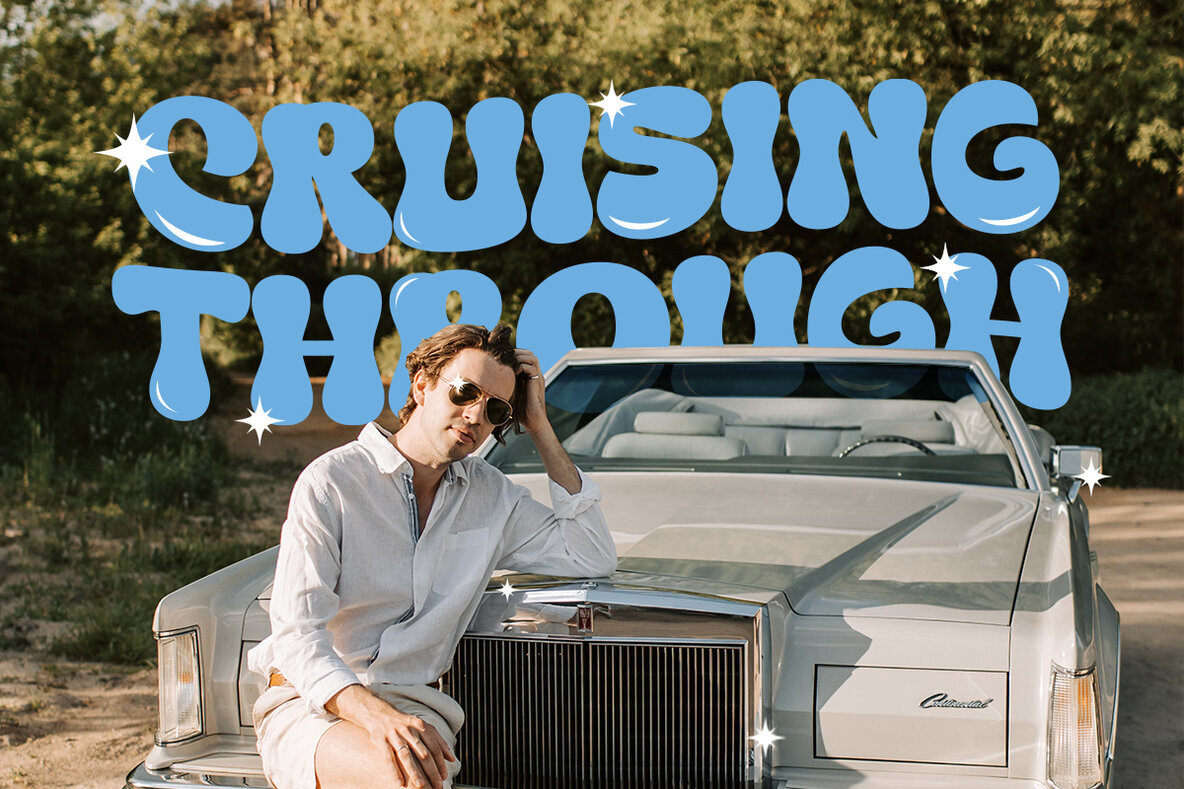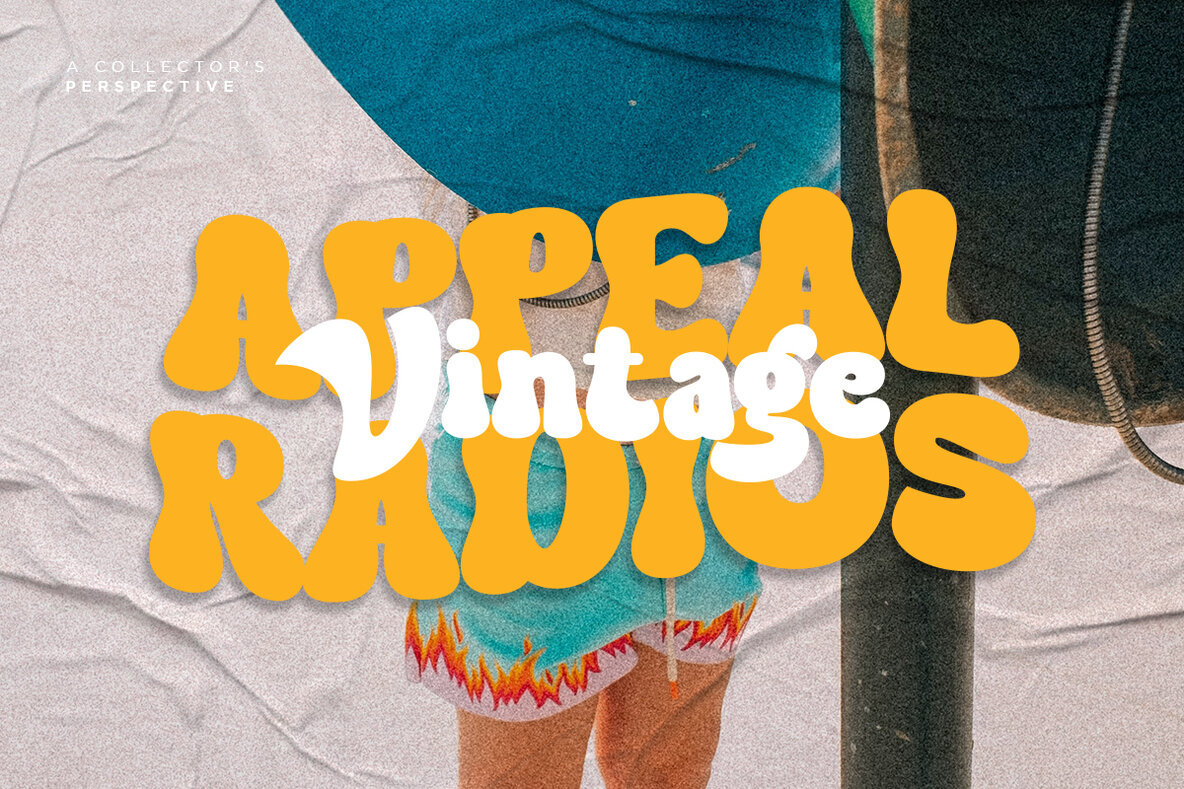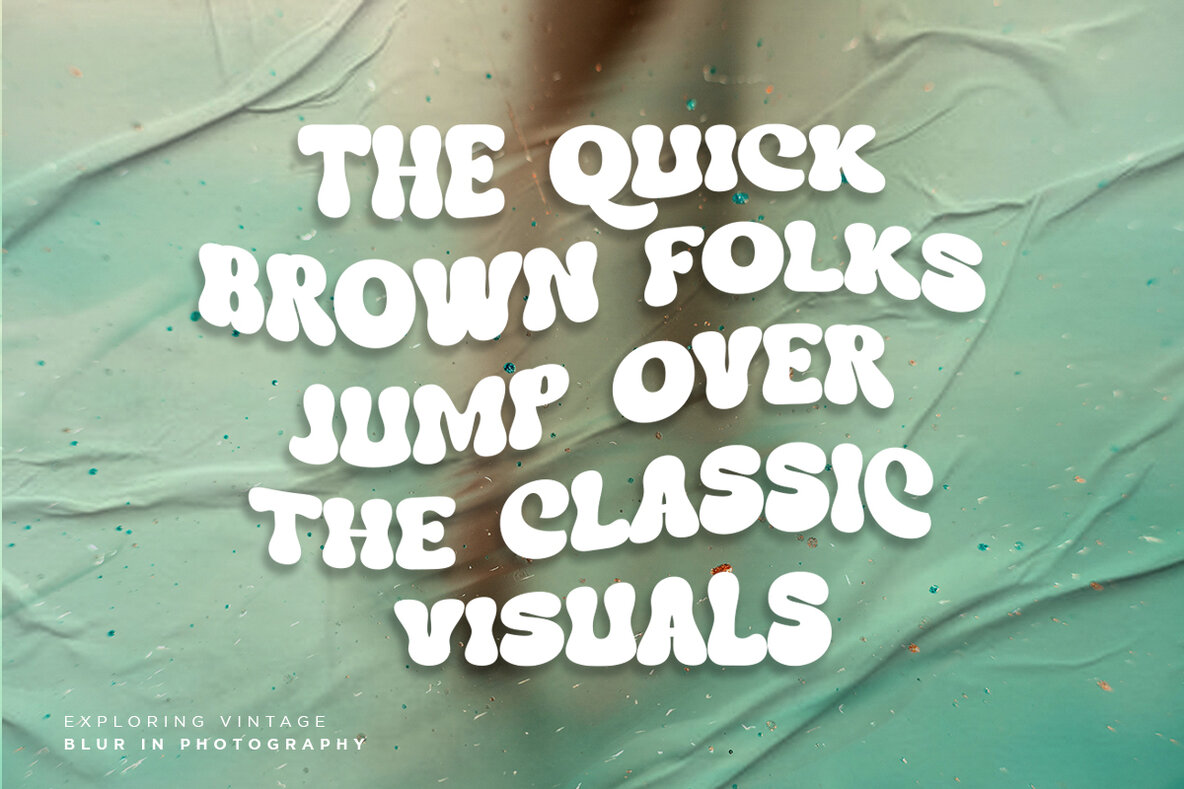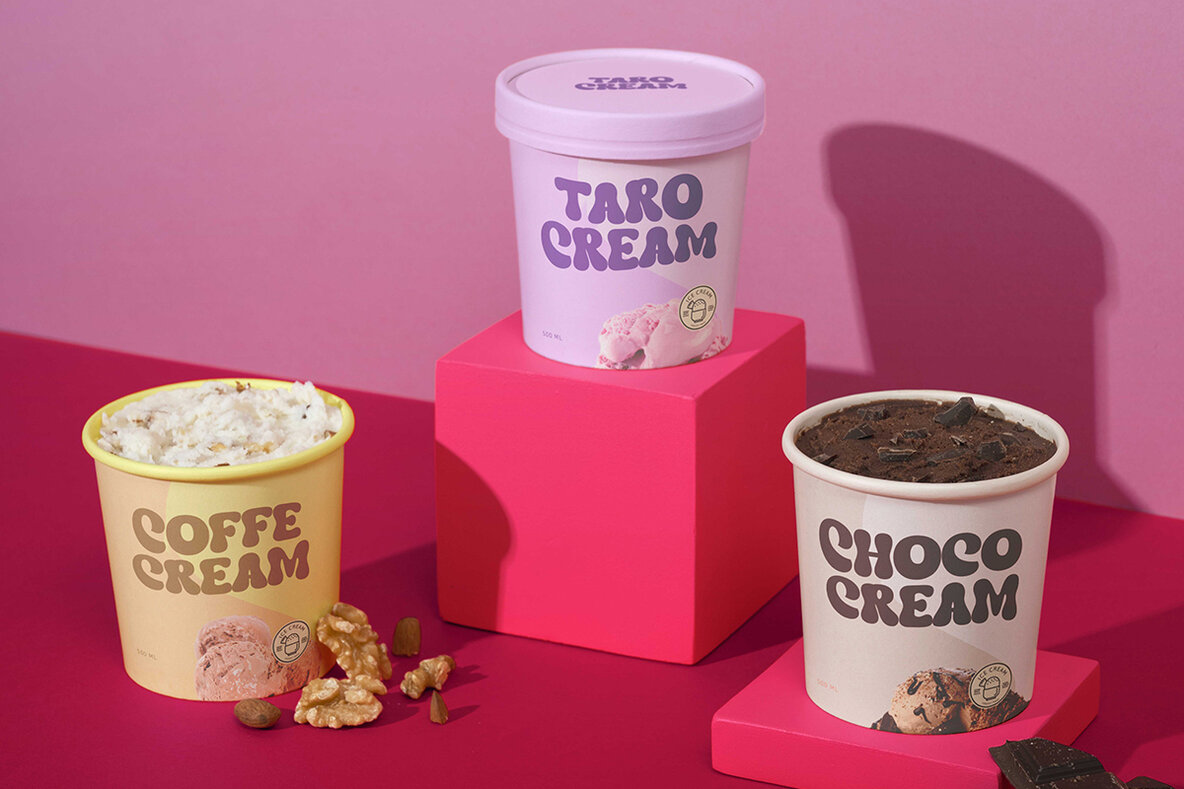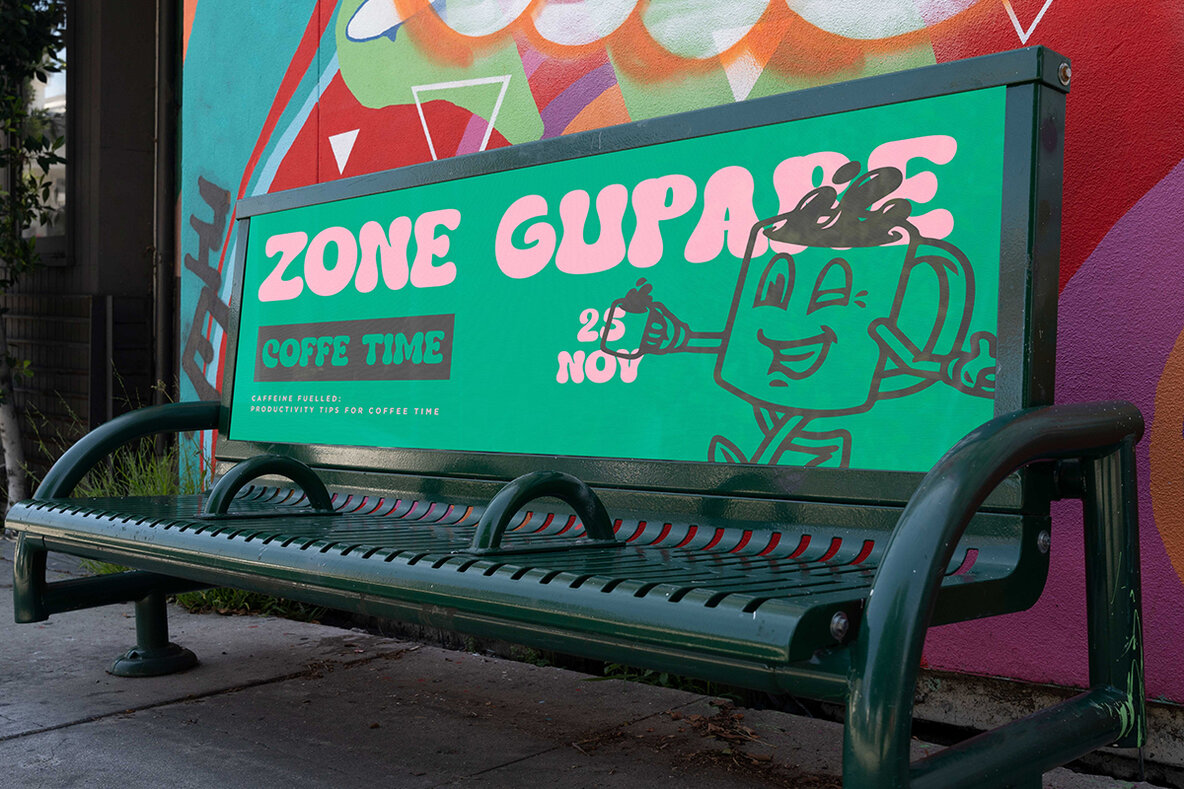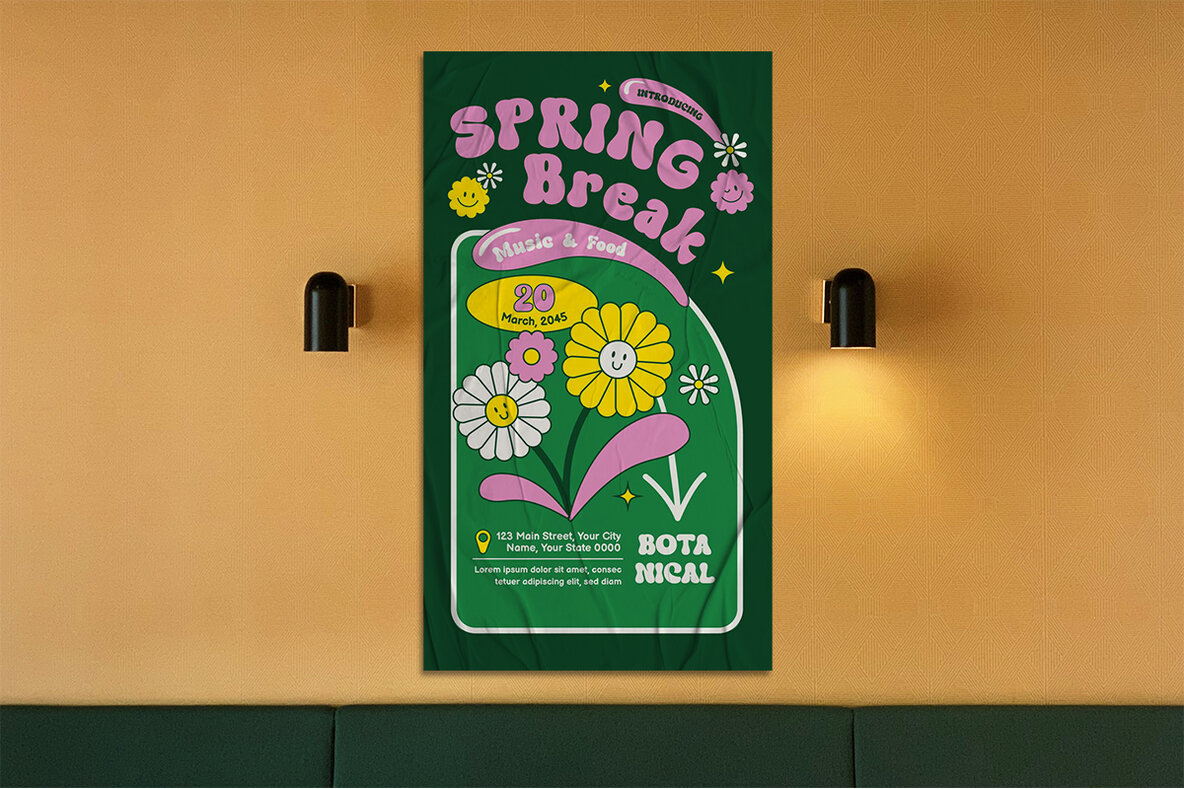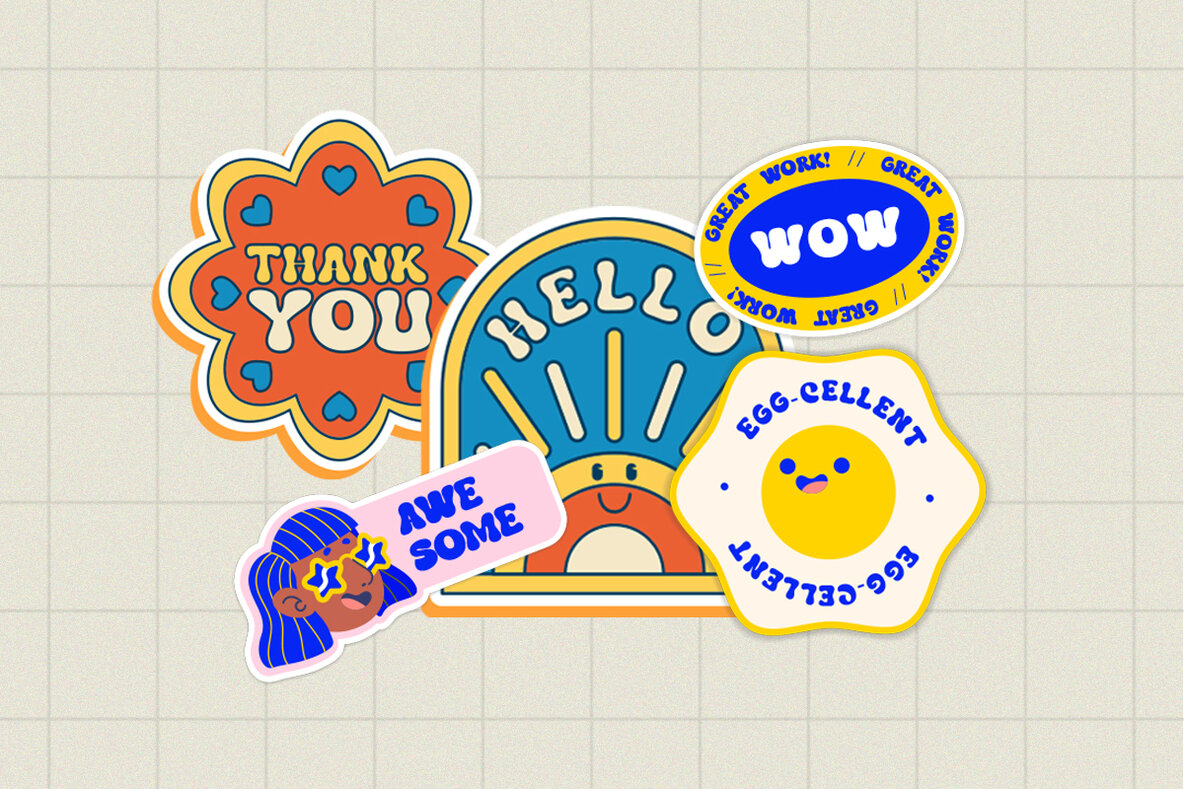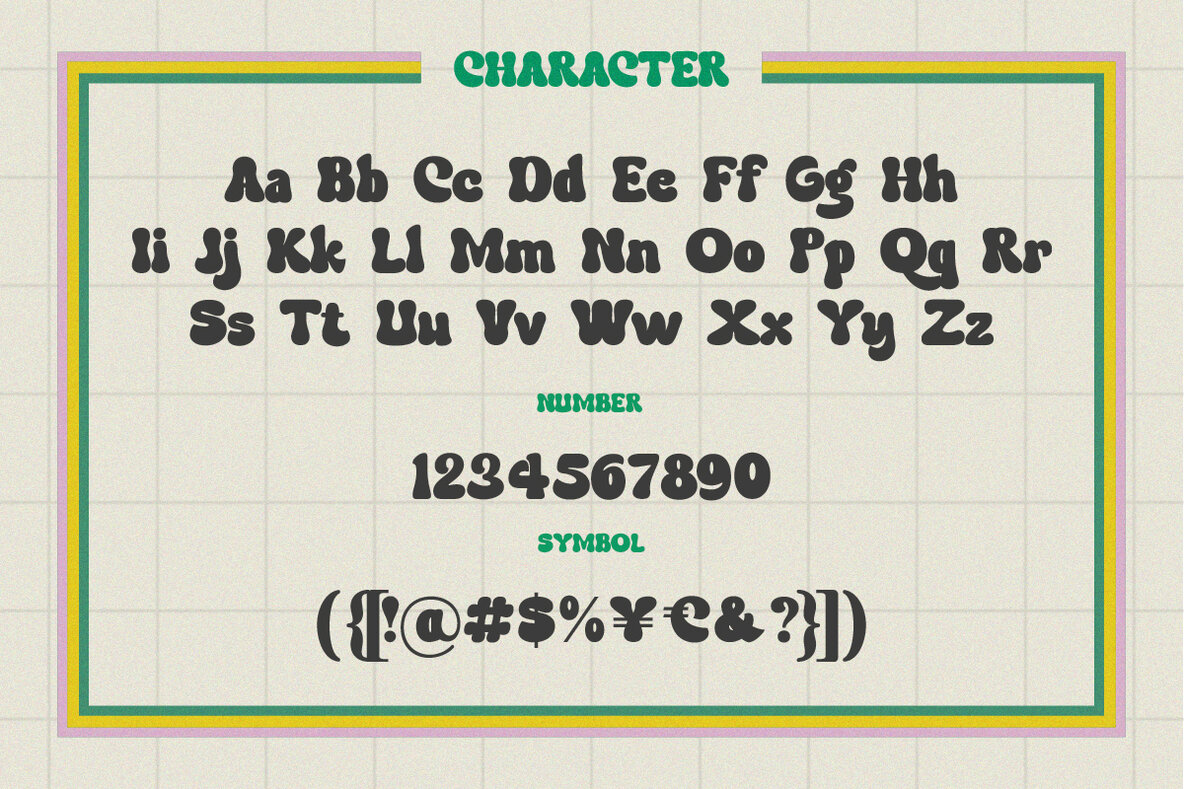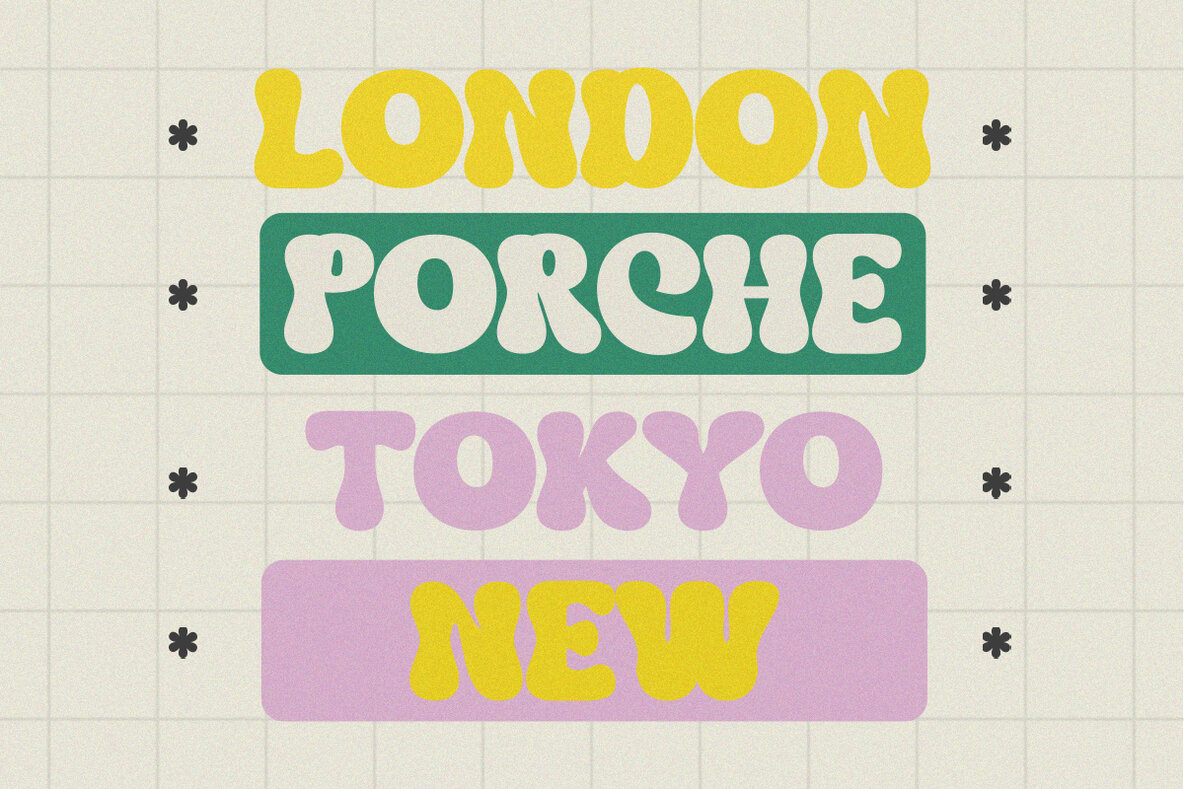
The Sugiko Font
The Sugiko Regular
Transform your designs into captivating retro masterpieces with The Sugiko. Whether you're creating a funky poster, a nostalgic logo, or a throwback-inspired website, this font adds an authentic vintage touch that's making waves in design trends. If you have any questions, feel free to reach out. Enjoy crafting with The Sugiko, and thank you for your support!The Sugiko: Embrace Groovy Retro Vibes